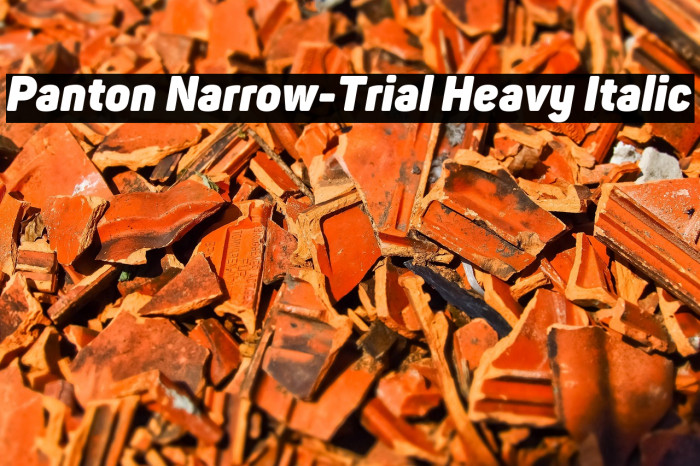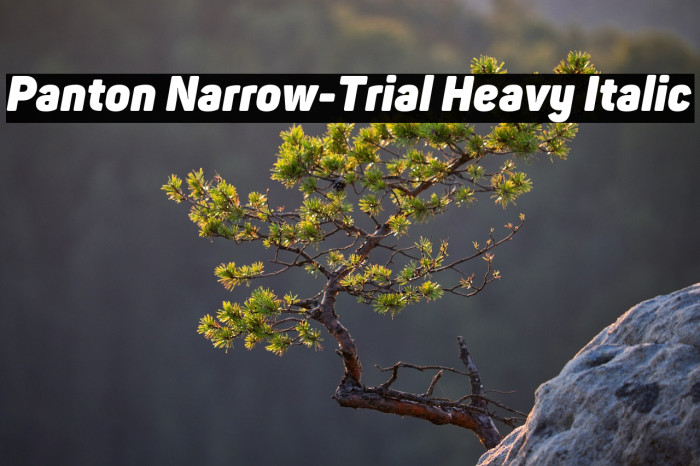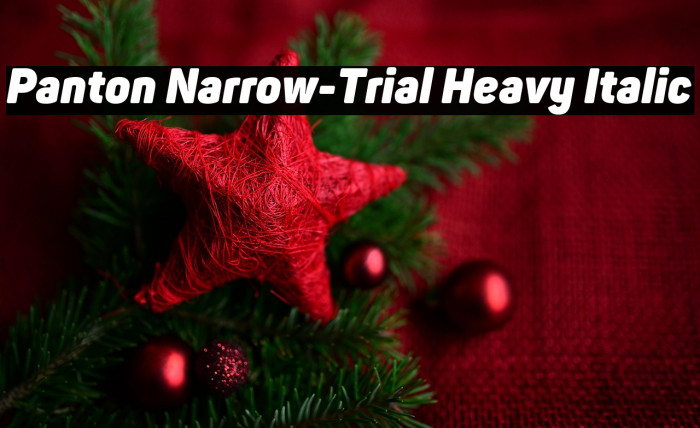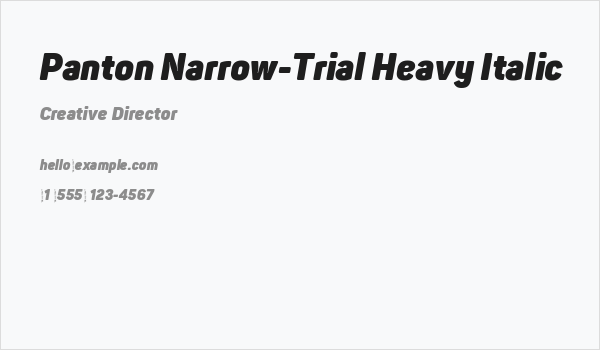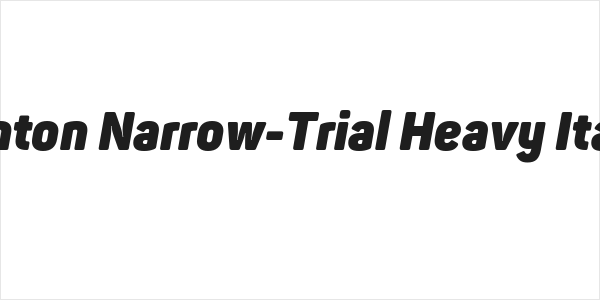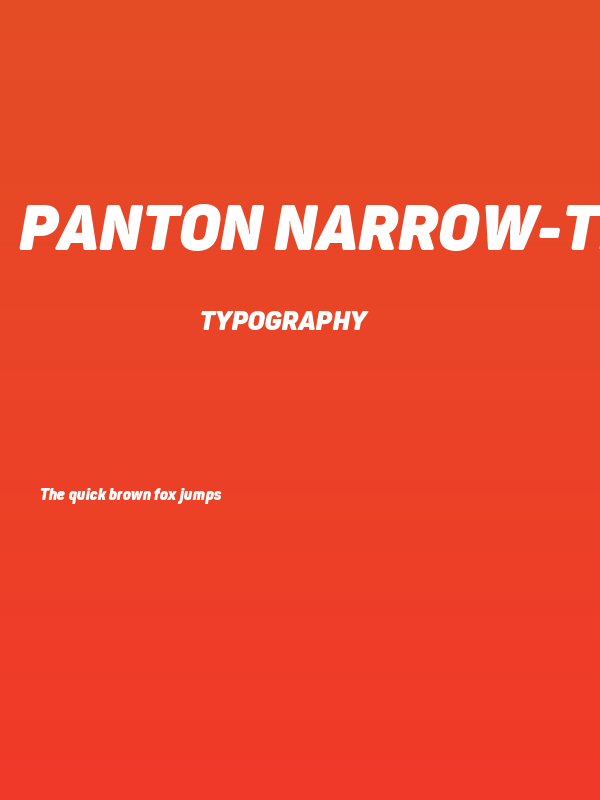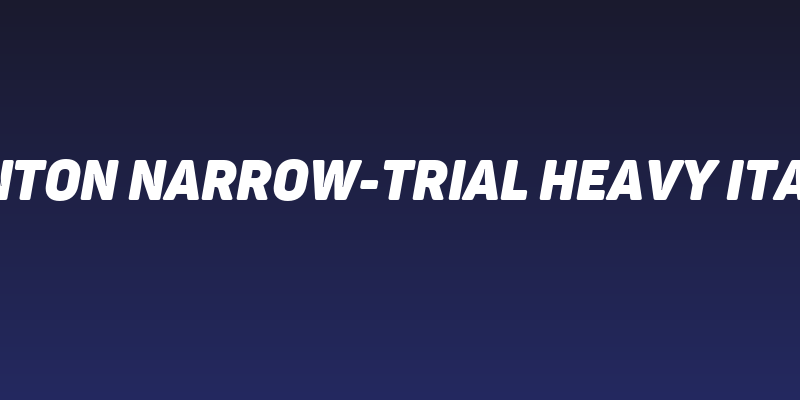
Panton Narrow-Trial Heavy Italic Font
Panton Narrow-Trial Heavy Italic Description
This font features a bold and dynamic style with a distinctly modern appearance. The characters are narrow and italicized, giving a sense of motion and urgency. The strokes are thick and consistent, providing a strong visual impact. The uppercase and lowercase letters maintain a cohesive design, with rounded edges and a slightly condensed form. The numerals are equally bold, ensuring clarity and readability. Special characters are included, maintaining the same stylistic elements as the alphabet. This font is well-suited for projects that require a contemporary and assertive look.
| Proposed Projects | Ideal for branding, advertising, headlines, and any design requiring a modern and bold typeface. |